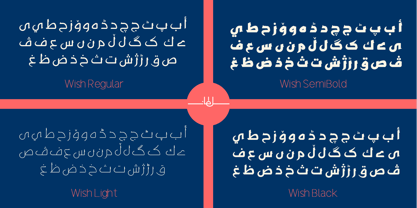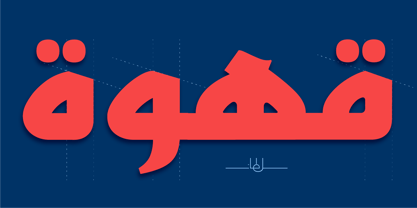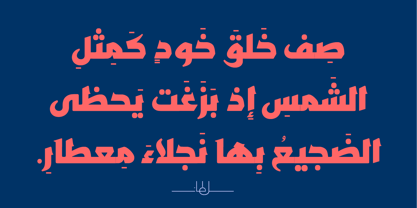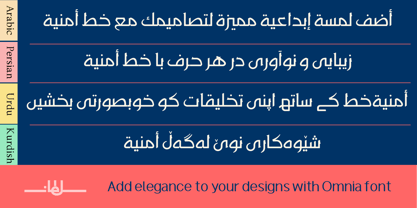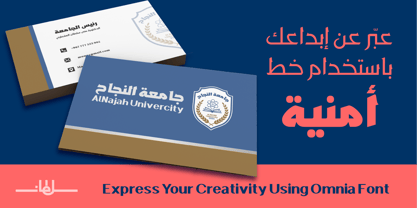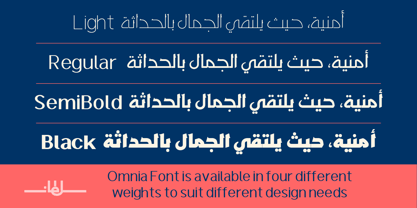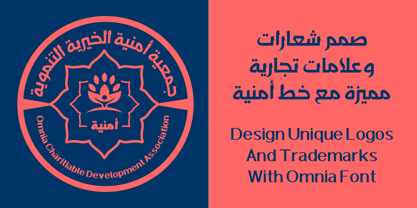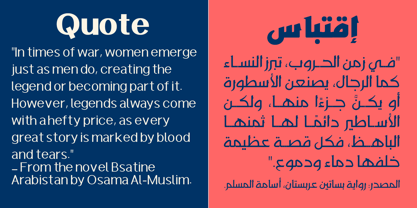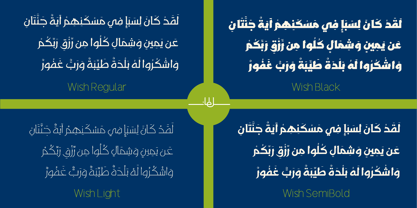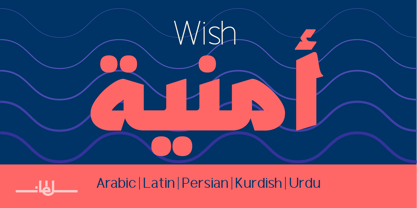
SF Wish
by Sultan Fonts
The SF Wish Font Family was designed by Sultan Maqtari and published by Sultan Fonts. SF Wish contains 4 styles and family package options. More about this family
Wish, a contemporary Arabic typeface by Sultan Al-Maqtari, strikes the perfect balance between structured geometry and organic flow. Sporting four versatile weights and robust multi-language support (Arabic, Latin, Persian, Urdu, and Kurdish), Wish is engineered to elevate your brand identity, logo designs, and digital user experiences.
From the delicate, airy strokes of Wish Light to the commanding, high-impact presence of Wish Black, this family provides a complete typographic toolkit for designers. Its generous counter-spaces and carefully calibrated proportions guarantee exceptional legibility across both editorial print layouts and high-definition screens. Perfectly suited for bilingual projects, the typeface bridges the gap between different script traditions, ensuring that your Latin and Arabic copy sit in absolute visual harmony. Whether you are crafting a minimal corporate business card, an intricate logo, or typesetting a compelling literary layout, Wish adapts seamlessly while retaining its distinct, sophisticated character.